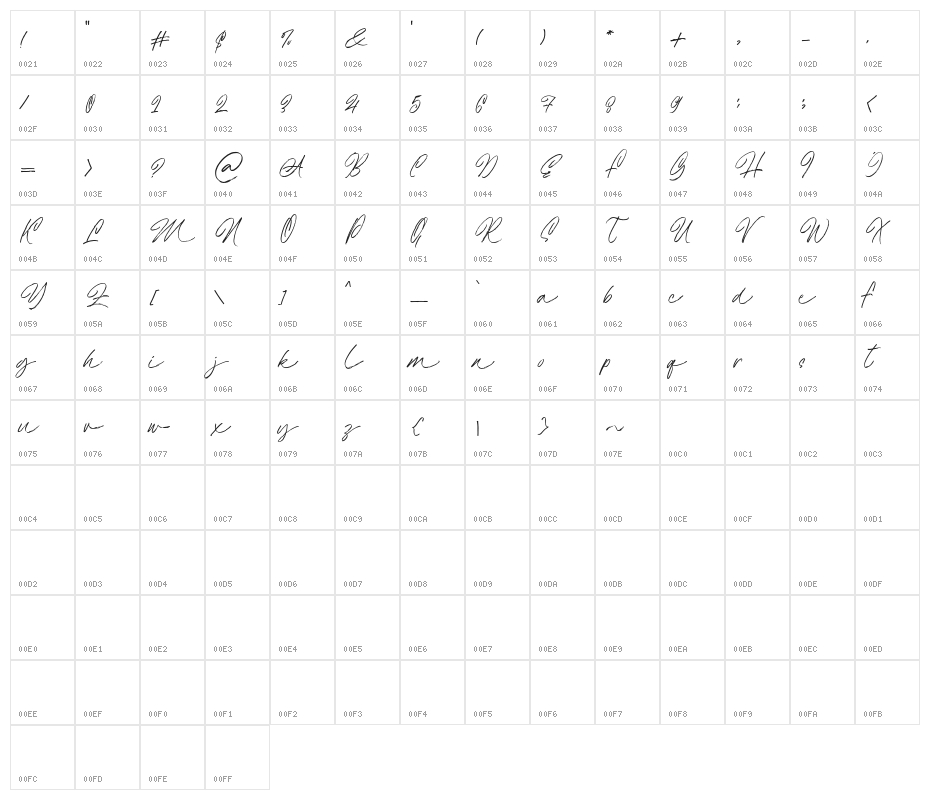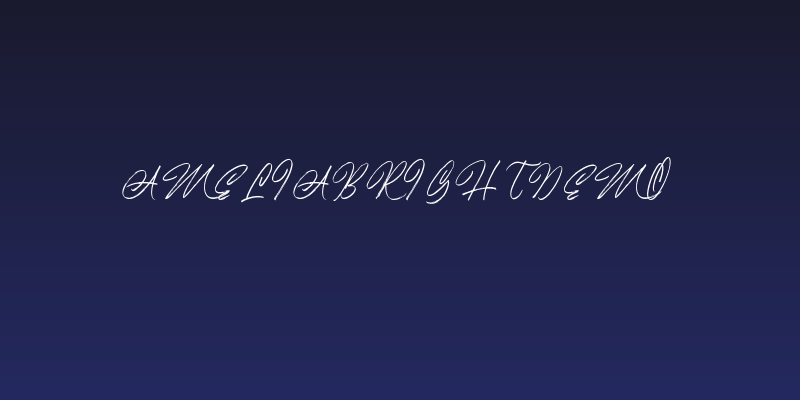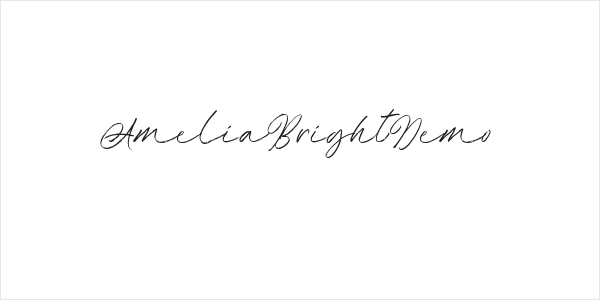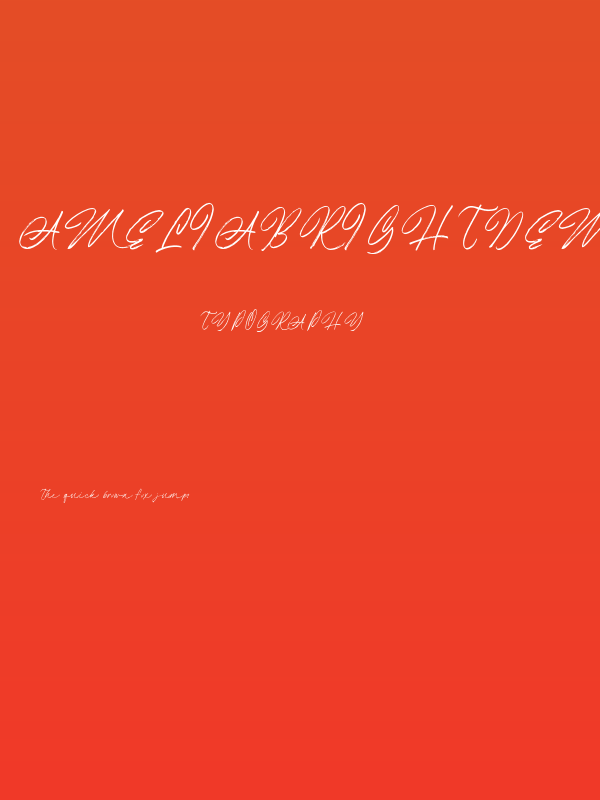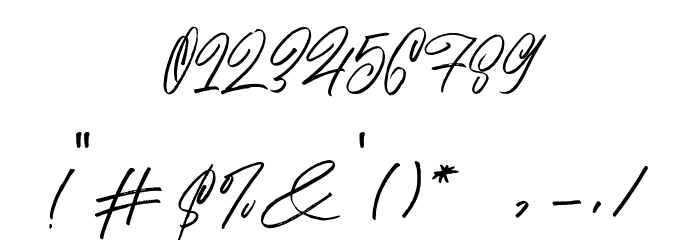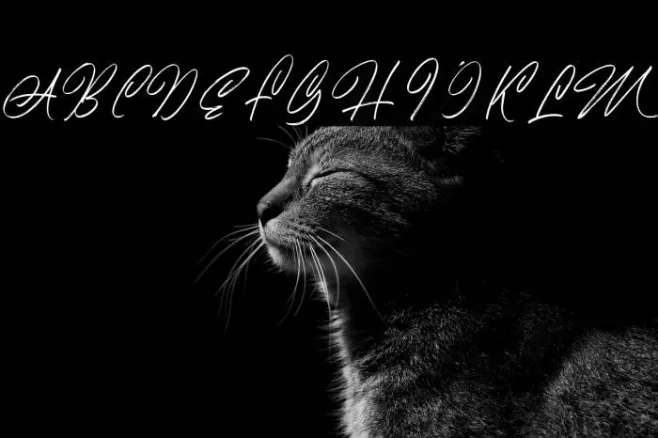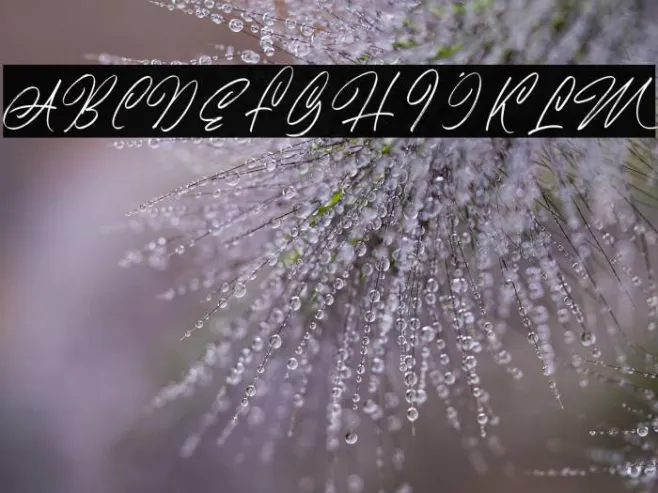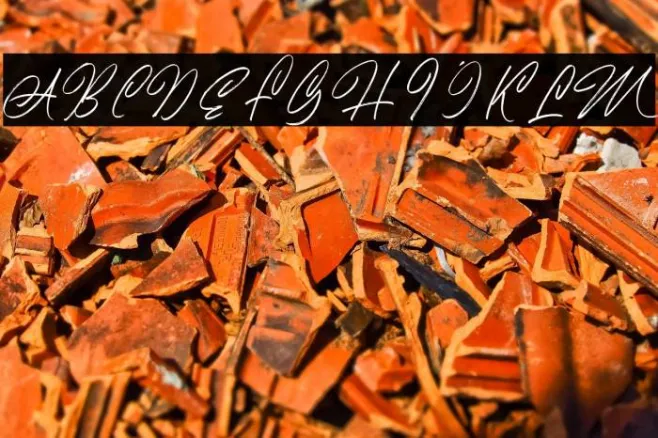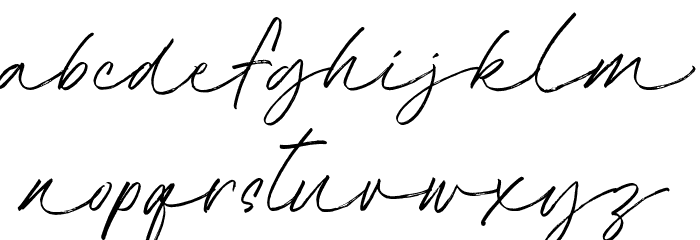
AmeliaBrightDemo Font
AmeliaBrightDemo Description
This elegant script font features a flowing, cursive style with smooth, connected strokes that mimic natural handwriting. The uppercase letters are slightly more ornate, with flourishes that add a touch of sophistication. The lowercase letters maintain a consistent flow, enhancing readability while preserving the font's decorative nature. Numbers and special characters are designed to match the overall aesthetic, ensuring a cohesive look across all text elements. The font's delicate lines and graceful curves make it ideal for projects that require a personal, handwritten touch.